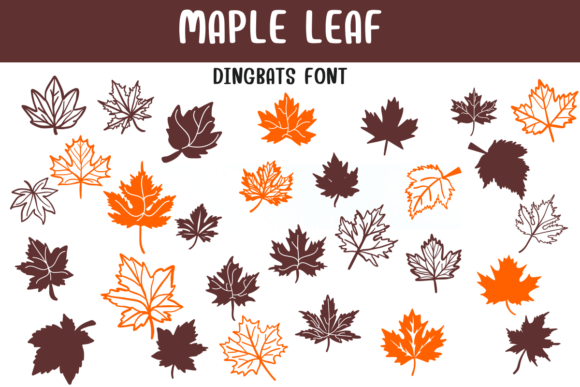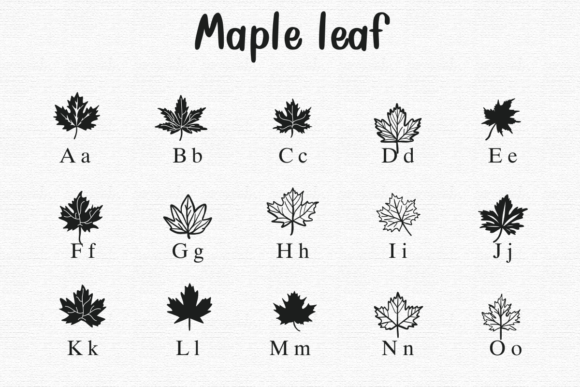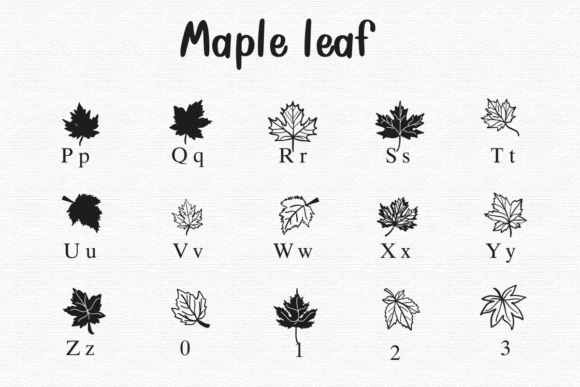
Maple Leaf Font
Maple Leaf is a unique dingbat font featuring a collection of hand-drawn maple leaf illustrations. Ideal for autumn-themed designs, invitations, scrapbooking, logos, and decorative elements, this font provides an easy and stylish way to incorporate beautiful leaf patterns into your projects. Simply type to create stunning foliage!